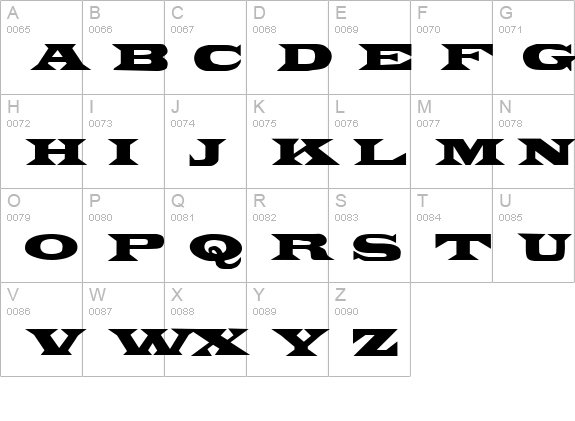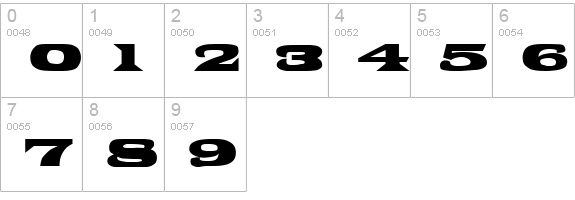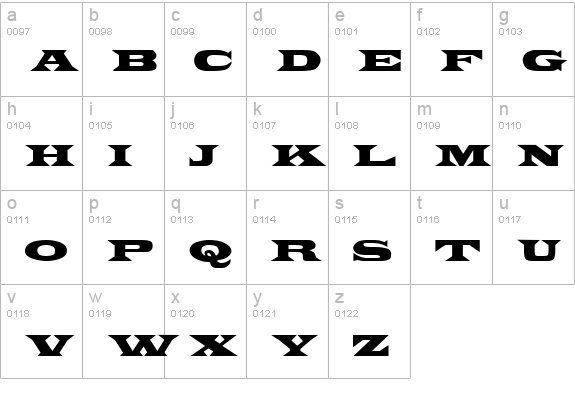
Zyklop Font Details
Zyklop font is a modern and sleek typeface that exudes sophistication and style. With its clean lines and elegant curves, this font is perfect for adding a touch of class to any design project. The versatile nature of Zyklop makes it suitable for various purposes, from branding to editorial design. What sets Zyklop font apart is not only its aesthetic appeal but also its accessibility. This font is available for free download at FontsMarket.com, making it easy for designers to incorporate it into their work without breaking the bank. Whether you're working on a website, poster, or logo, Zyklop font will elevate your design and leave a lasting impression on viewers. Download this stunning font today and take your projects to the next level.